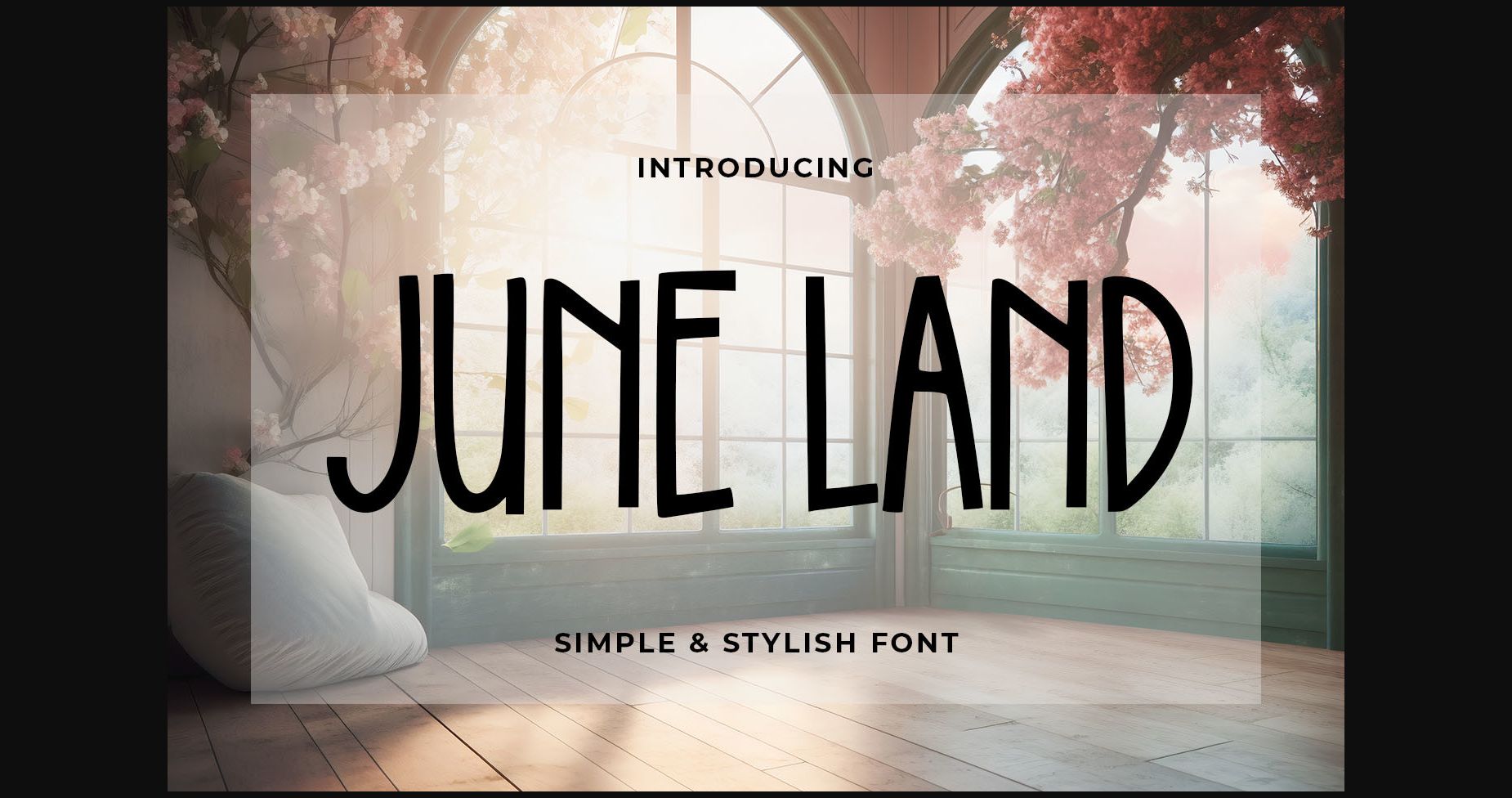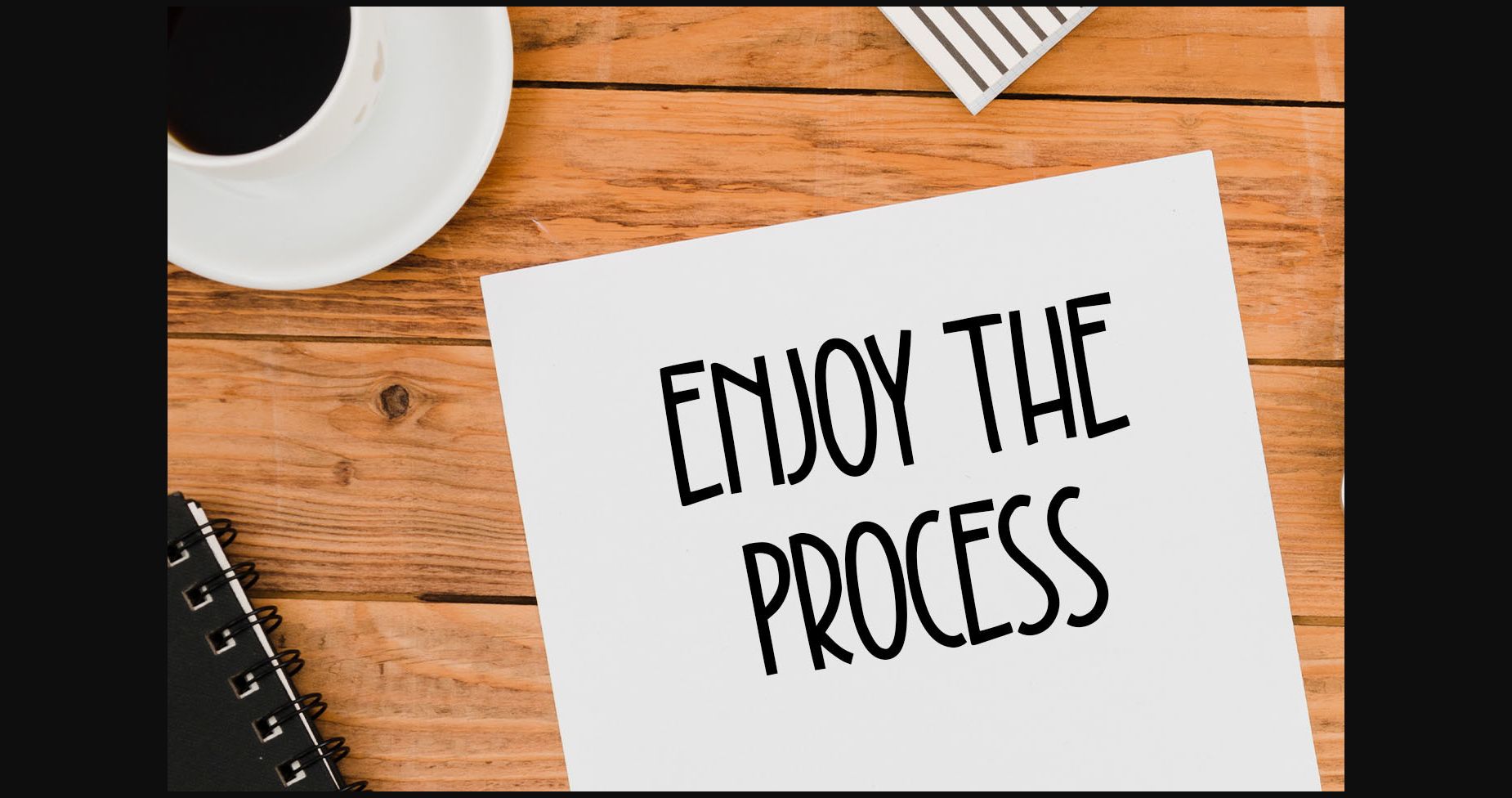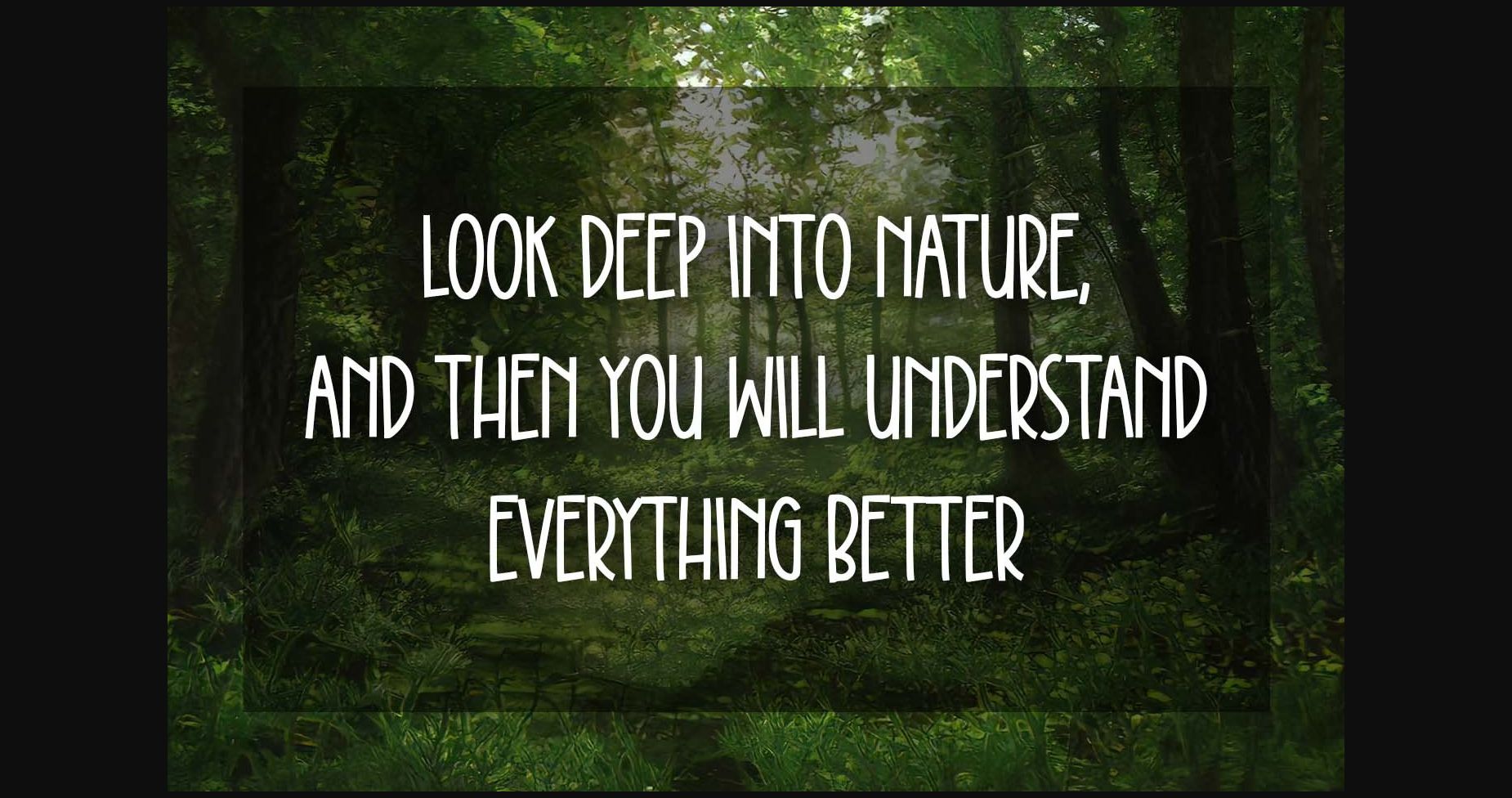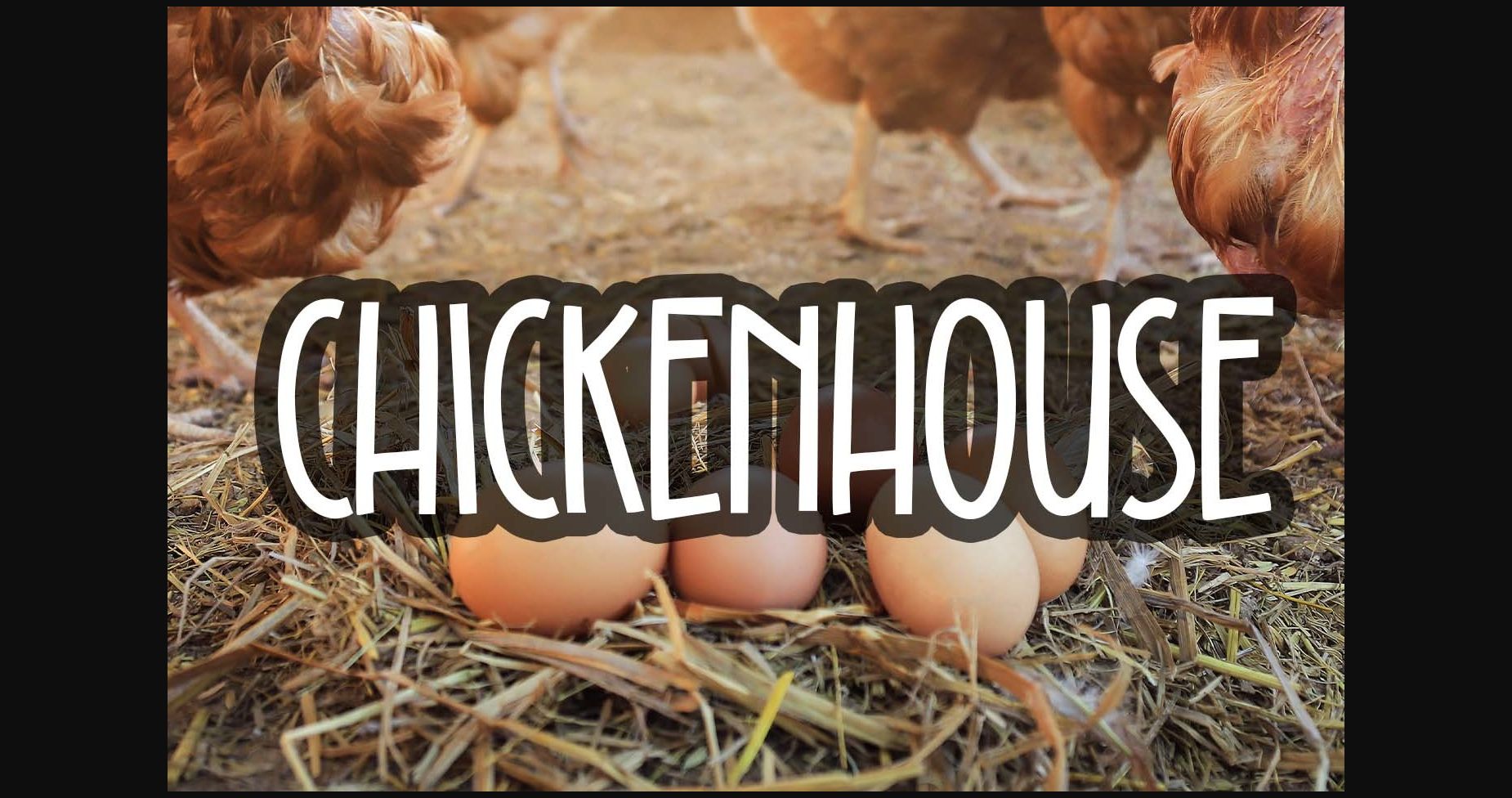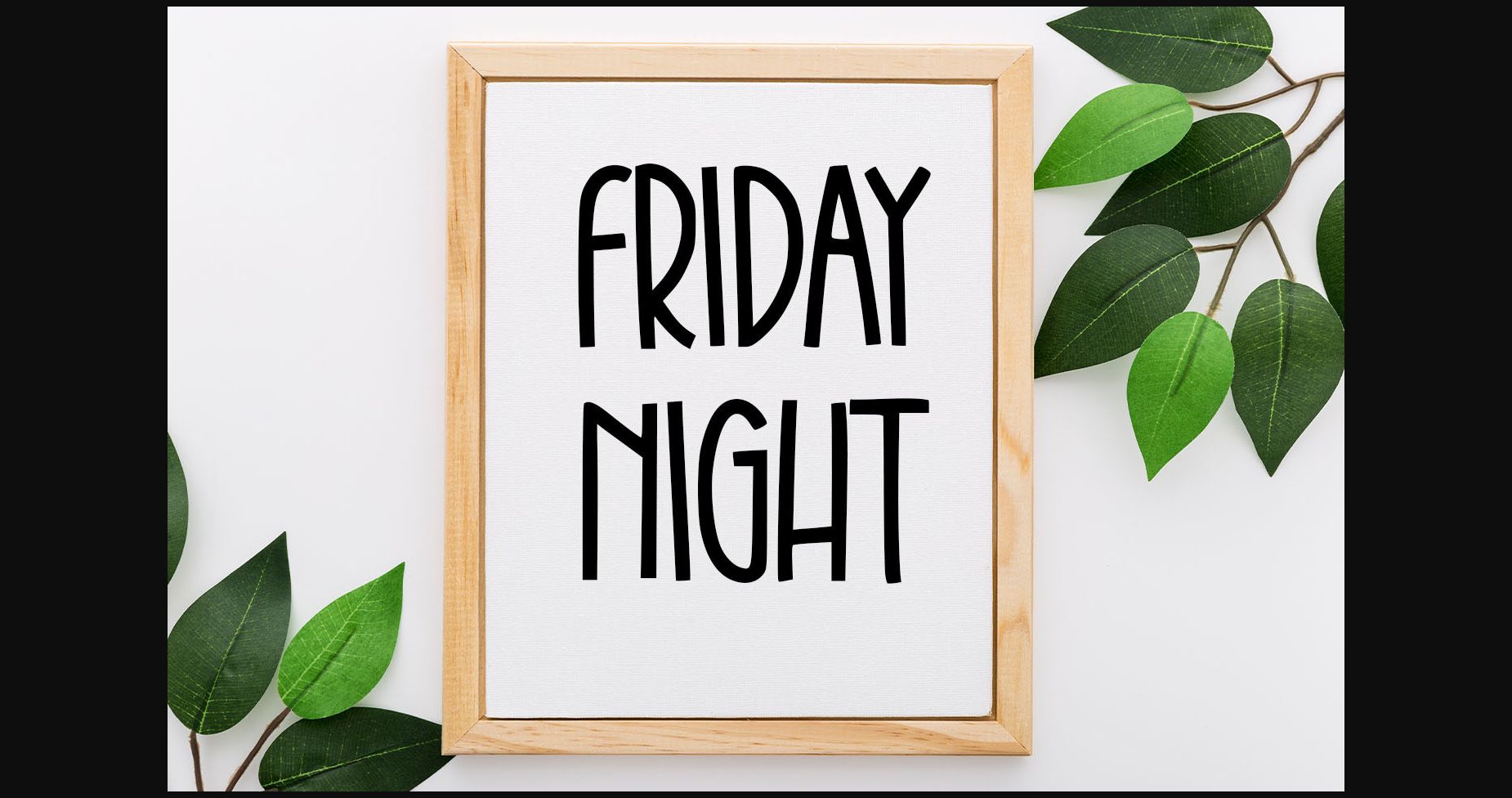
About June Land Font
JUNE LAND
– simply & stylish font –
JUNE LAND is great for quotes, branding, packaging, t-shirt designs, tote bag designs, cards, banners, social media, and more.